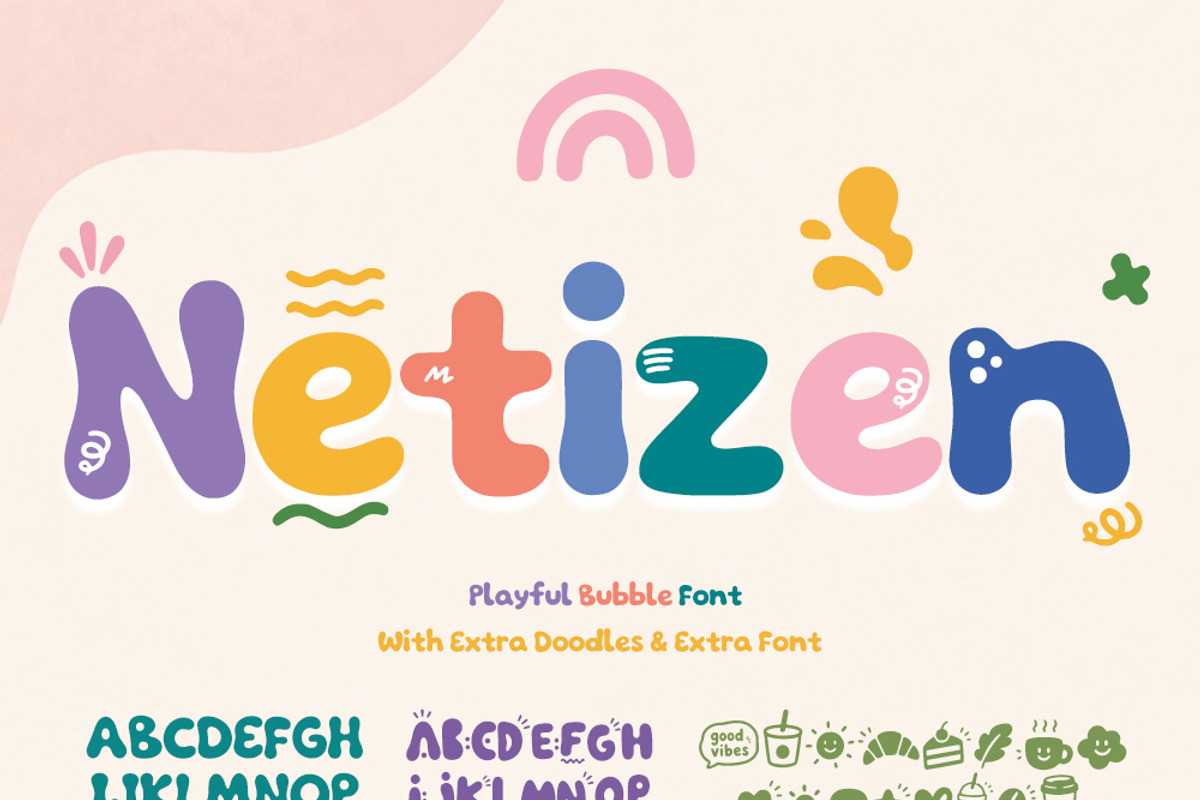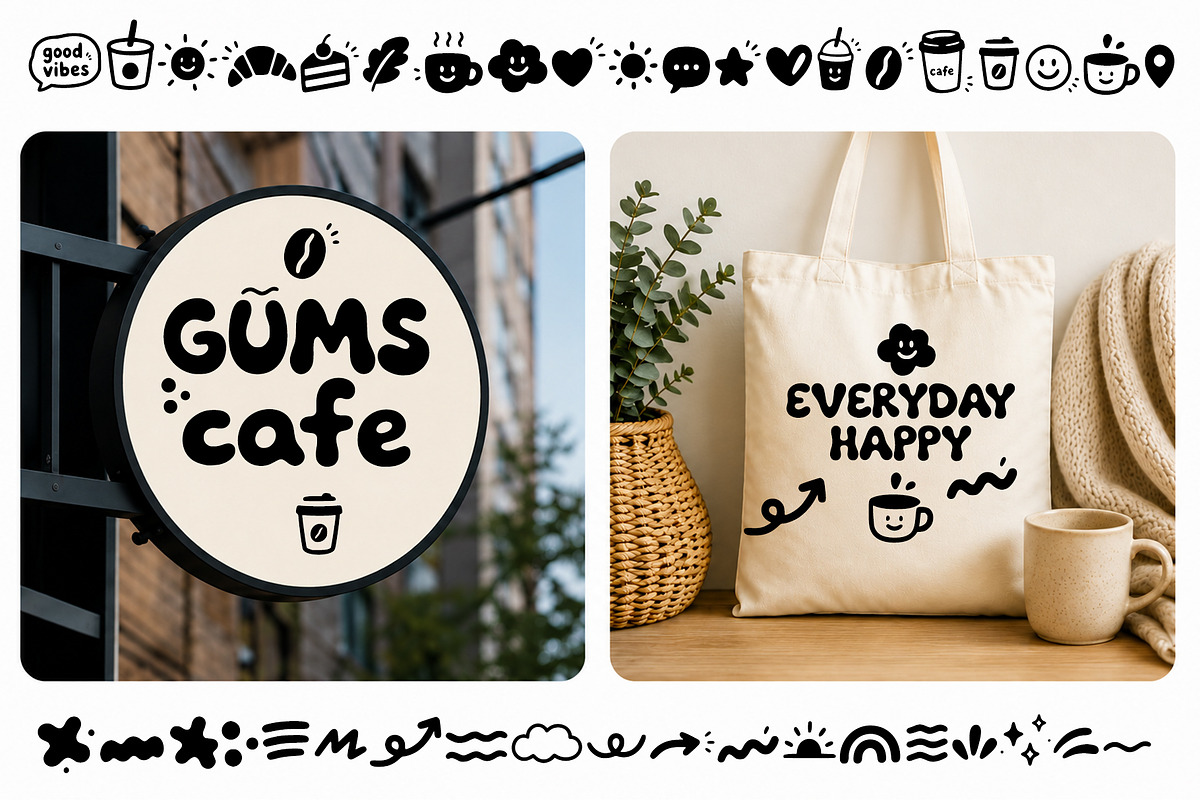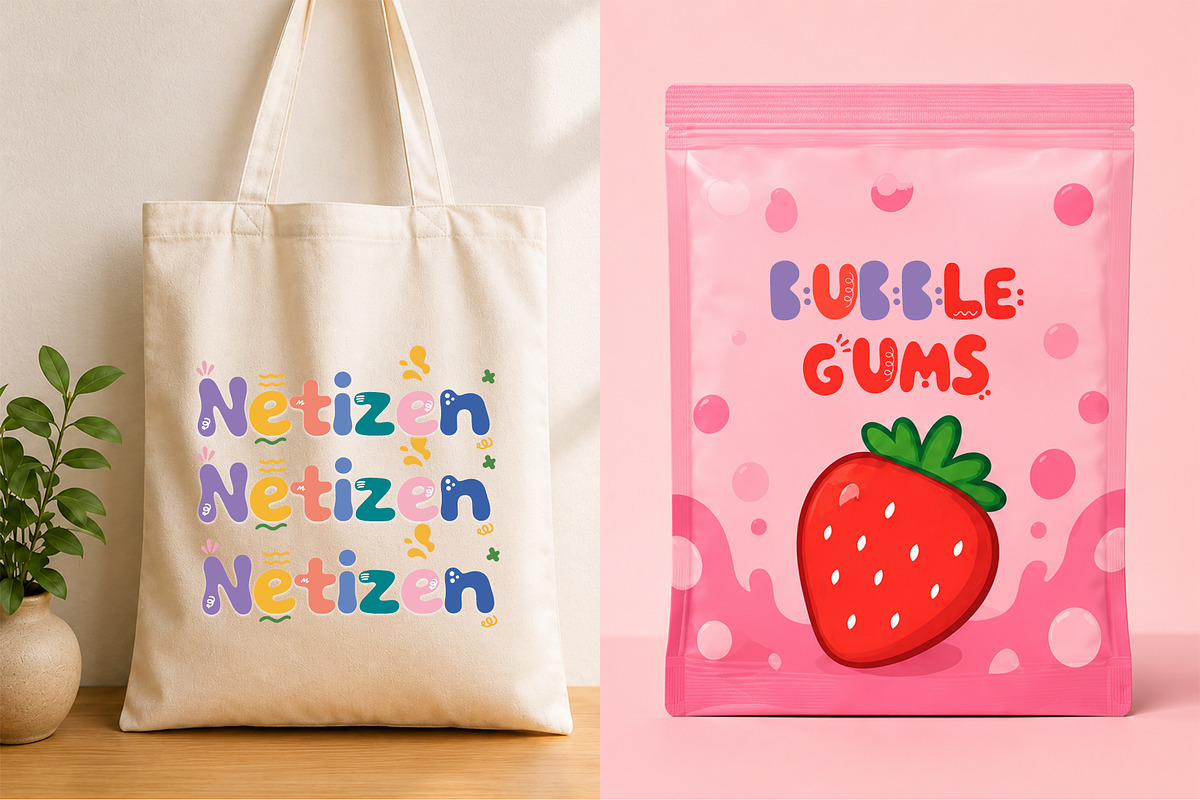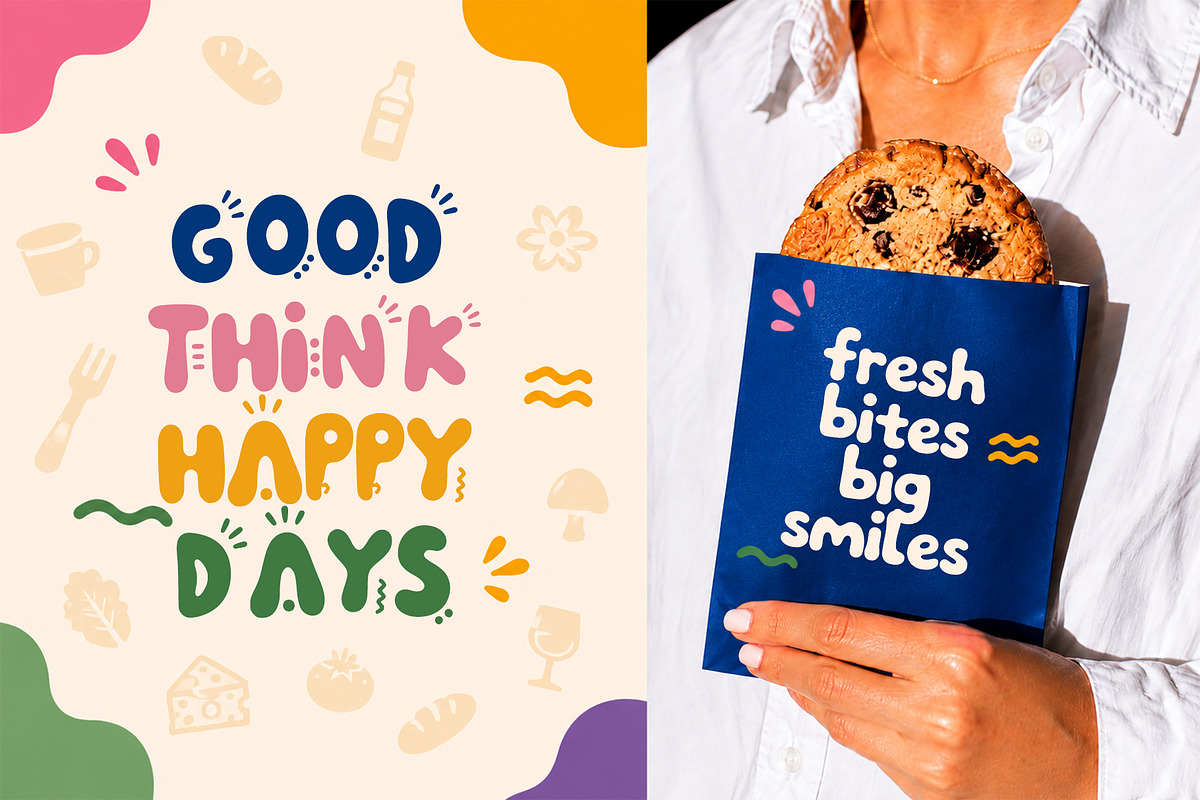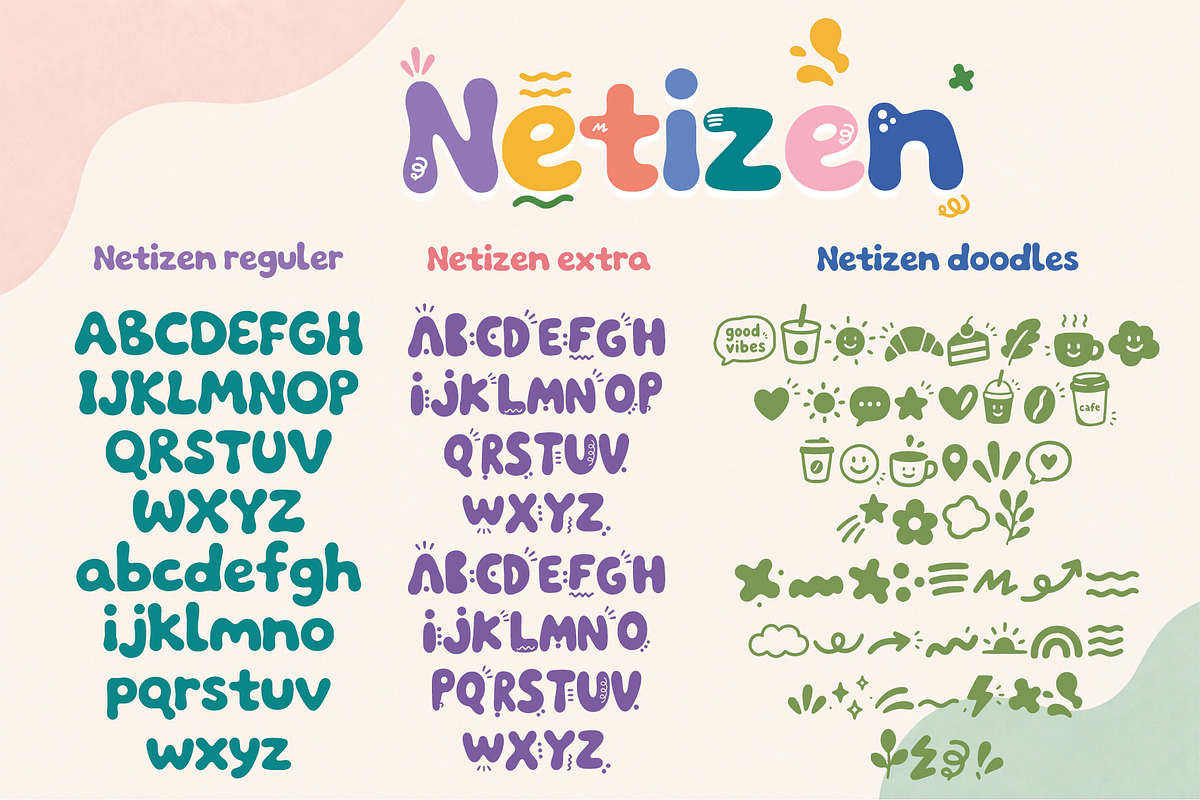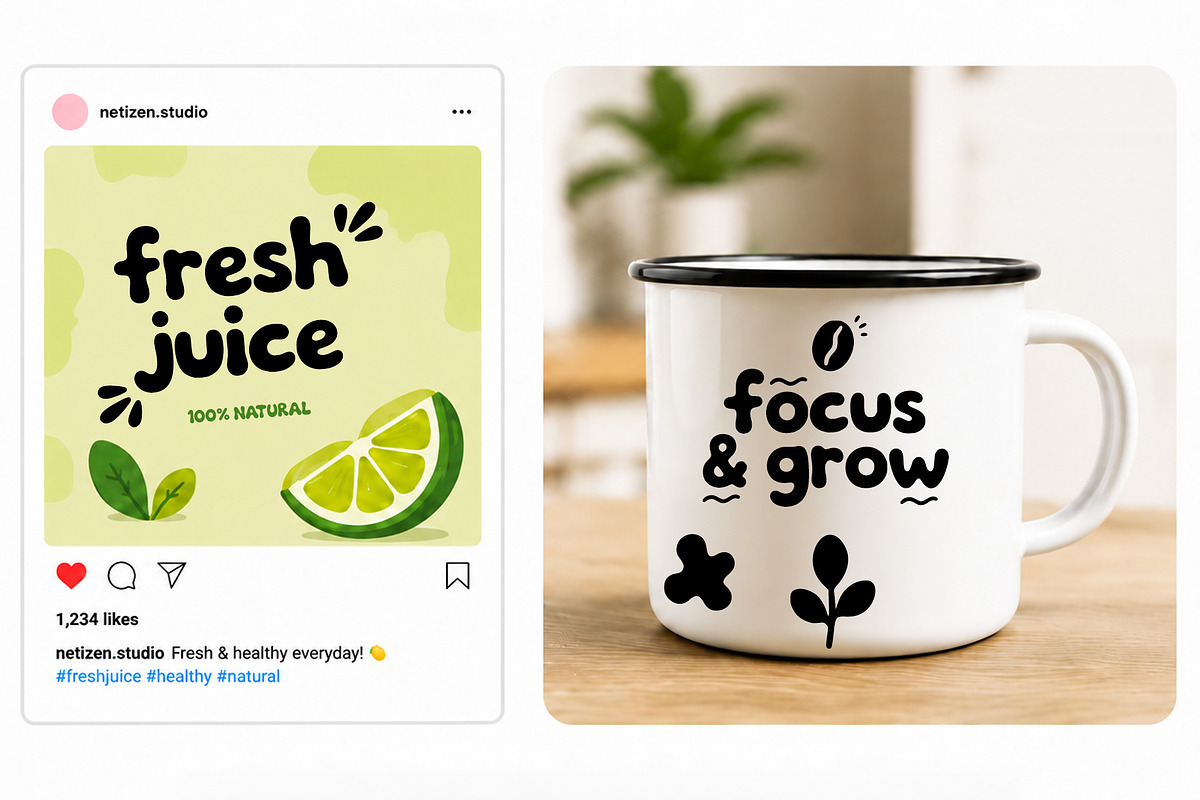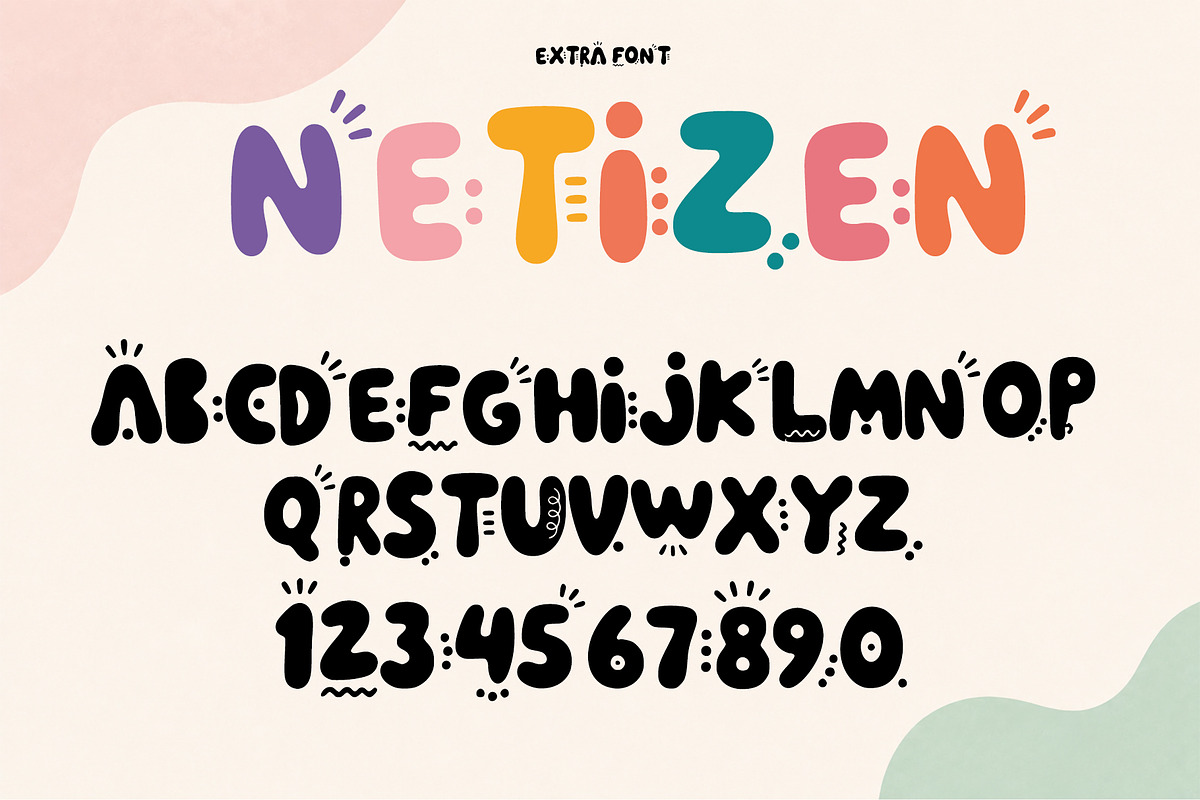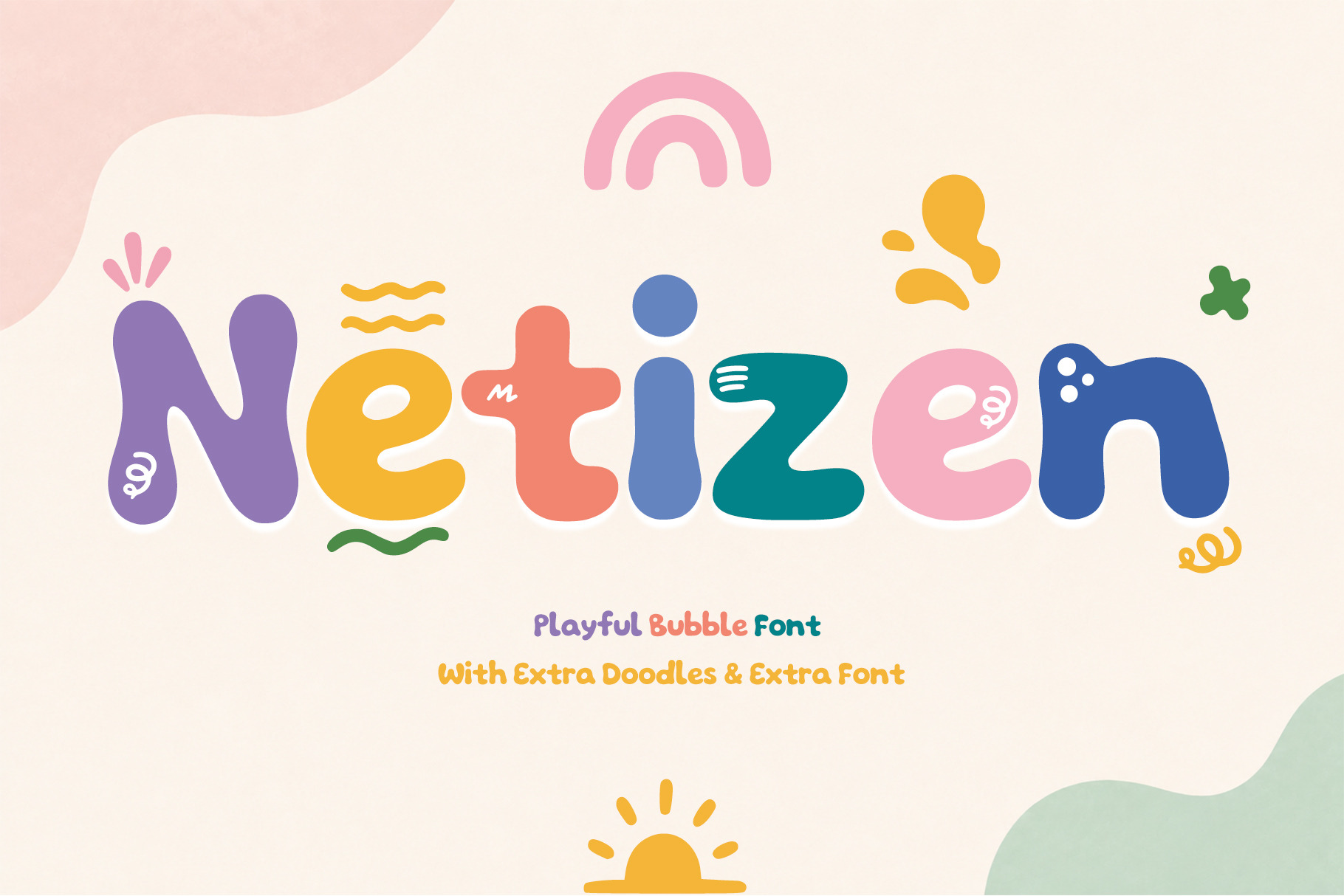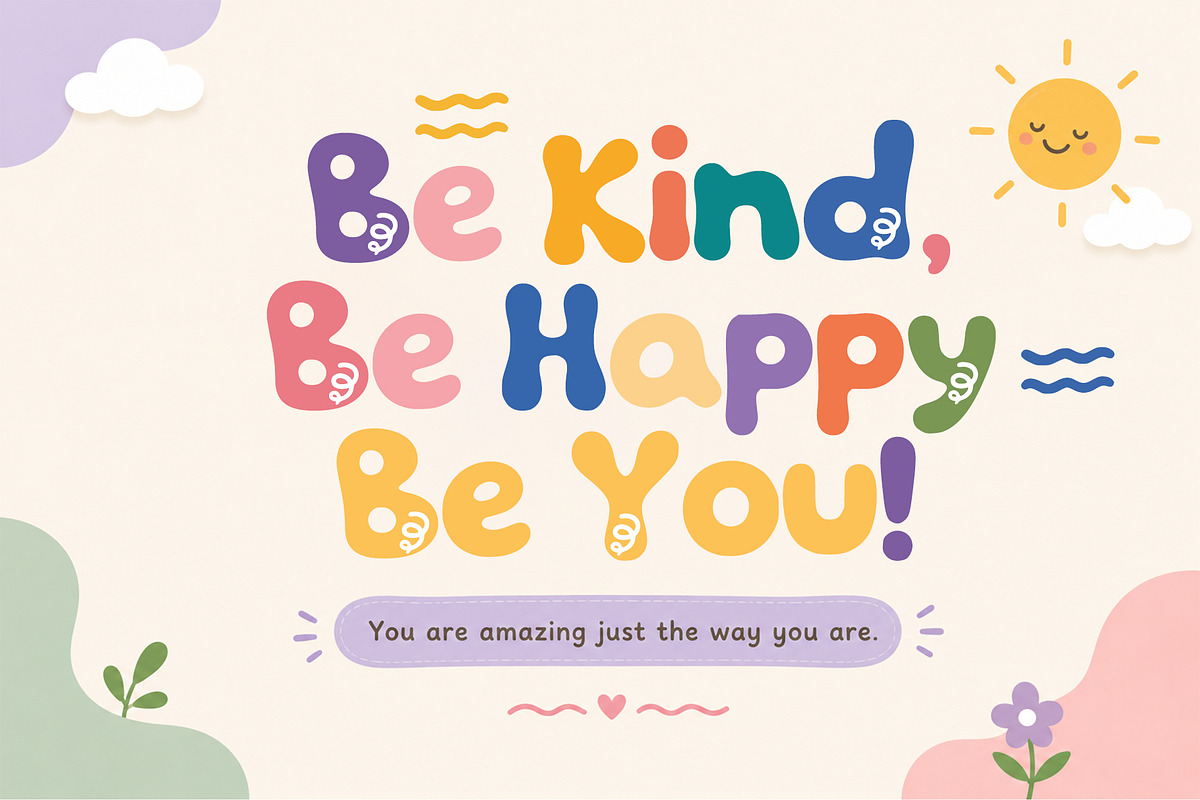
Netizen – Playful Bubble Font
Netizen is a cheerful and playful bubble display font designed to bring fun, creativity, and personality to any project. Featuring bold rounded letterforms, smooth curves, and whimsical details, this font is perfect for eye-catching designs that need a friendly and energetic touch.
Whether used for children's products, stickers, packaging, branding, social media graphics, classroom materials, invitations, or creative merchandise, Netizen delivers a joyful and memorable appearance that stands out effortlessly.
To make designs even more exciting, this package also includes a collection of matching doodle elements that complement the playful style of the font and help create unique compositions in seconds.